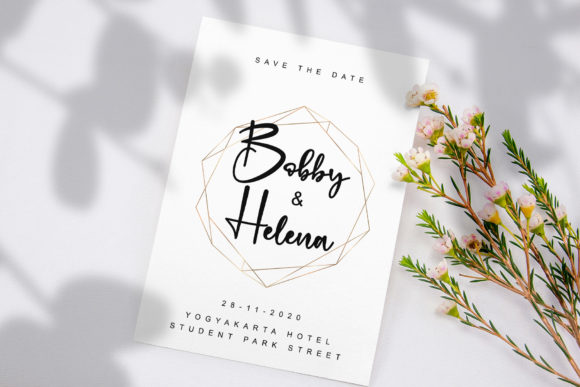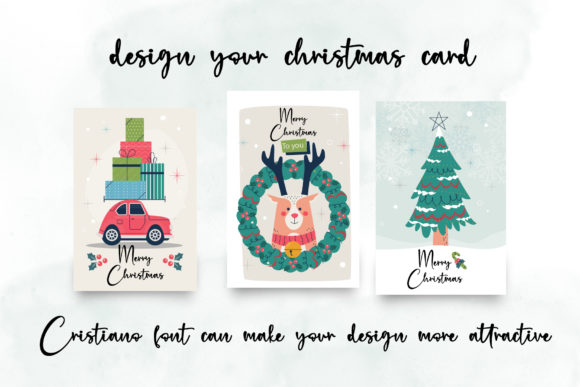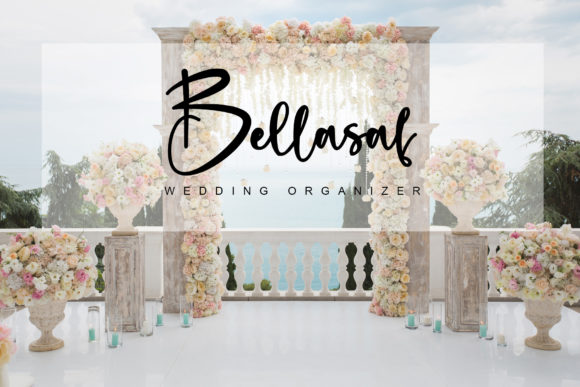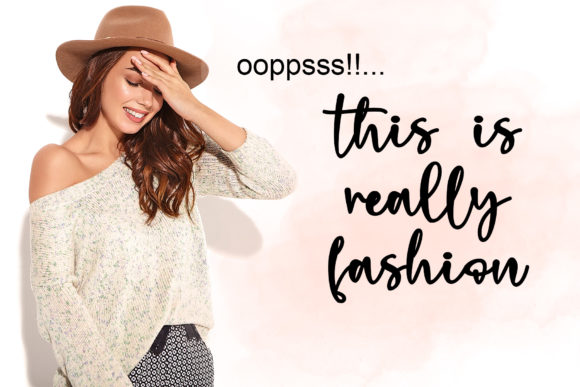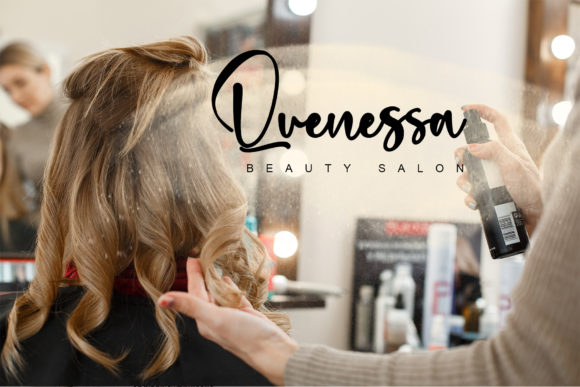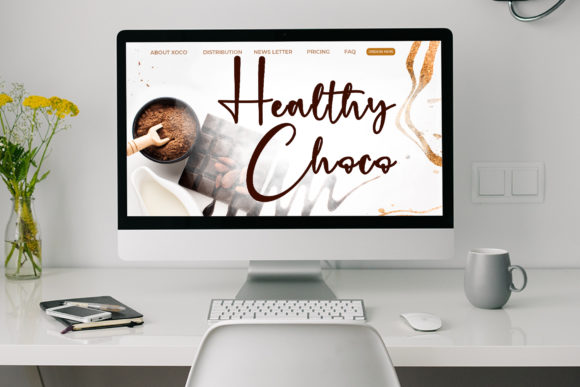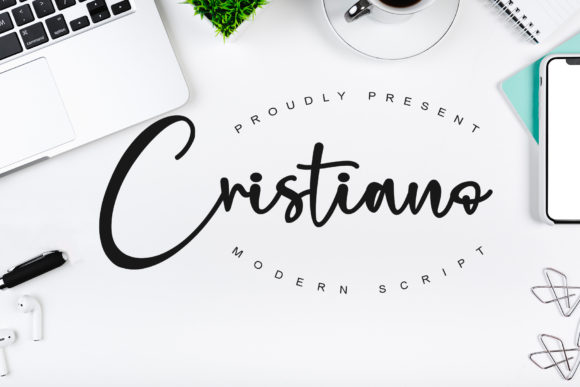
Cristiano Font: Elevate Your Designs with a Delicate Script Font
Cristiano Font is a stunning script font that boasts a modern feel, making it perfect for designers and crafters looking to add a touch of elegance to their projects. With its delicate and well-balanced characters, Cristiano Font is an excellent choice for a wide range of designs, from wedding invitations and branding materials to digital content and more.
The Characteristics of Cristiano Font
Cristiano Font is designed with a focus on modernity and sophistication. Its characters are carefully crafted to exude a sense of refinement and luxury, making it ideal for designs that require a high level of elegance. The font features:
• Delicate strokes: Cristiano Font’s strokes are light and airy, giving the font a sense of fluidity and movement.
• Well-balanced characters: Each character is meticulously designed to ensure that the font is visually appealing and easy to read.
• Modern feel: Cristiano Font’s modern design makes it perfect for contemporary designs that require a fresh and stylish look.
Why Choose Cristiano Font?
Cristiano Font is an excellent choice for designers and crafters for several reasons:
• Versatility: Cristiano Font matches a wide pool of designs, making it a versatile font that can be used for various projects.
• Elegance: The font’s delicate and modern design makes it perfect for creating elegant and sophisticated designs.
• Readability: Cristiano Font is easy to read, making it suitable for body text and headlines.
How to Use Cristiano Font in Your Designs
Cristiano Font can be used in a variety of design projects, including:
• Wedding invitations: Add a touch of elegance to your wedding invitations with Cristiano Font.
• Branding materials: Use Cristiano Font to create sophisticated branding materials, such as logos, business cards, and letterheads.
• Digital content: Cristiano Font is perfect for digital content, including blog posts, social media graphics, and email newsletters.
Tips for Pairing Cristiano Font with Other Fonts
Pairing Cristiano Font with other fonts can create a unique and visually appealing design. Here are some tips for pairing Cristiano Font:
• Pair with a bold font: Pair Cristiano Font with a bold font to create contrast and add visual interest to your design.
• Choose a complementary font: Choose a font that complements Cristiano Font’s modern and elegant design.
• Experiment with font sizes: Experiment with different font sizes to create a visually appealing hierarchy of text.
Cristiano Font is a beautiful script font that offers a modern and elegant design. With its delicate strokes, well-balanced characters, and versatility, Cristiano Font is an excellent choice for designers and crafters looking to elevate their designs. Whether you’re creating wedding invitations, branding materials, or digital content, Cristiano Font is sure to add a touch of sophistication and elegance to your projects.